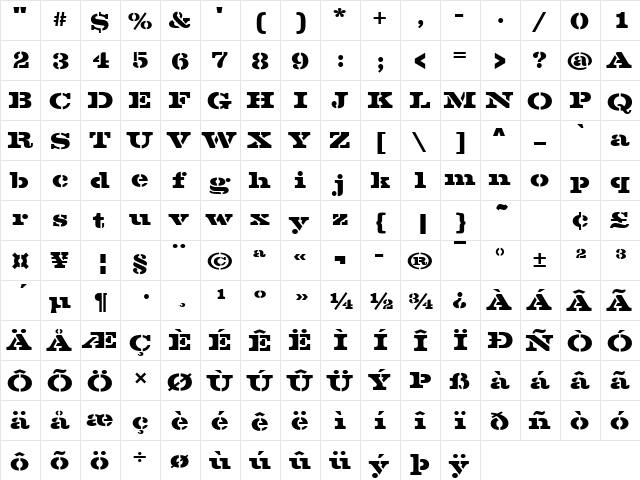
VoltaSteDBol Regular
Design Context for VoltaSteDBol Typeface
VoltaSteDBol takes a measured approach to typography — its balanced proportions and neutral character make it a reliable workhorse for both digital and print work.